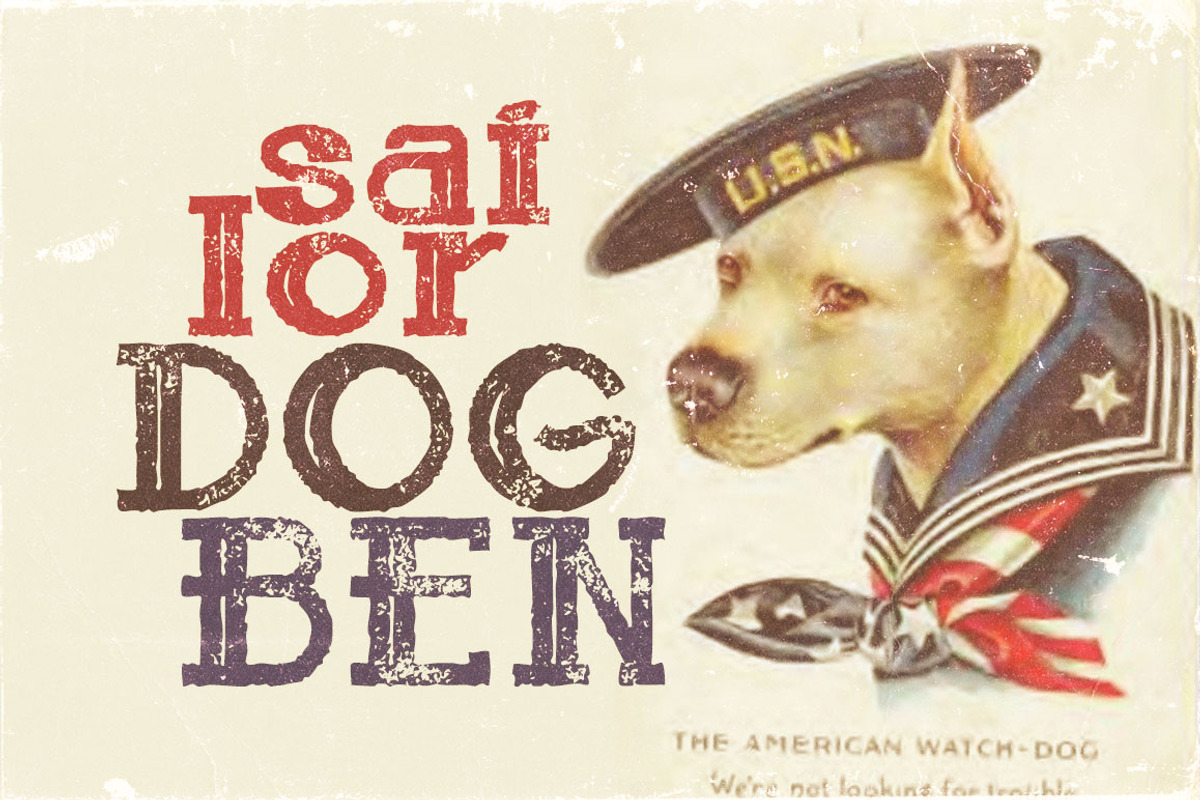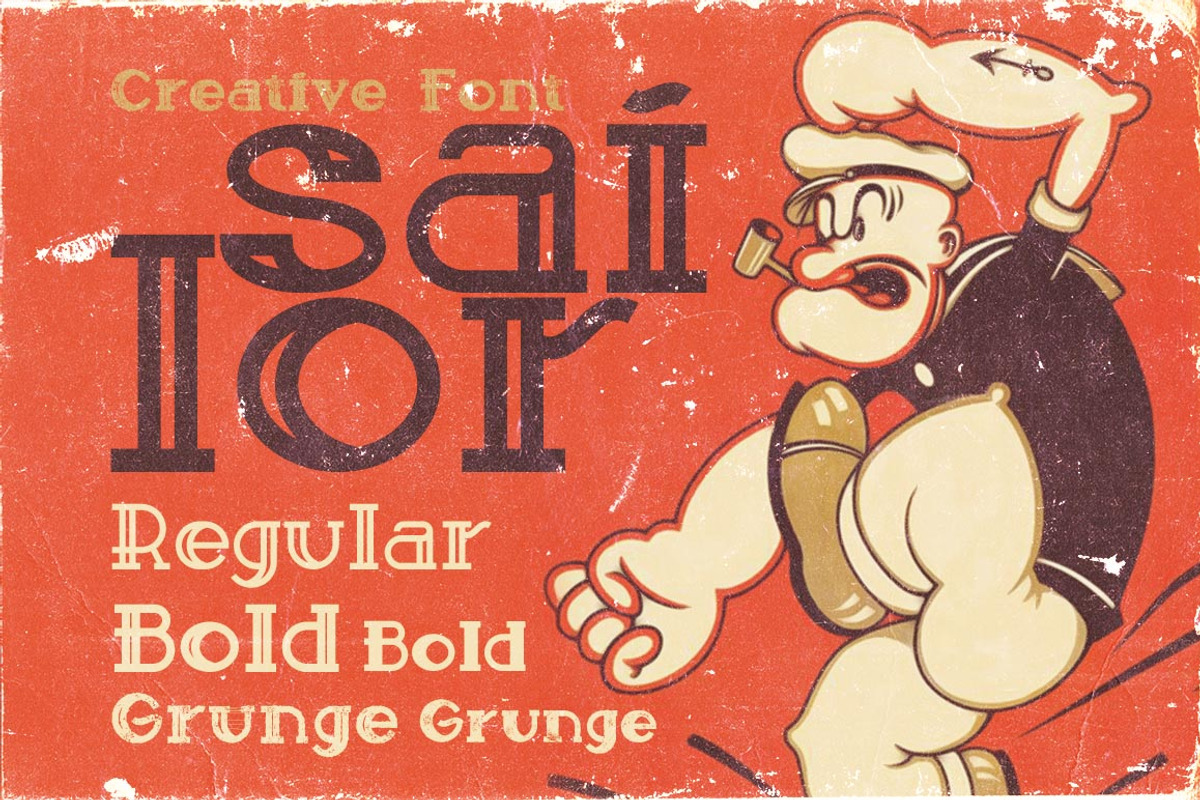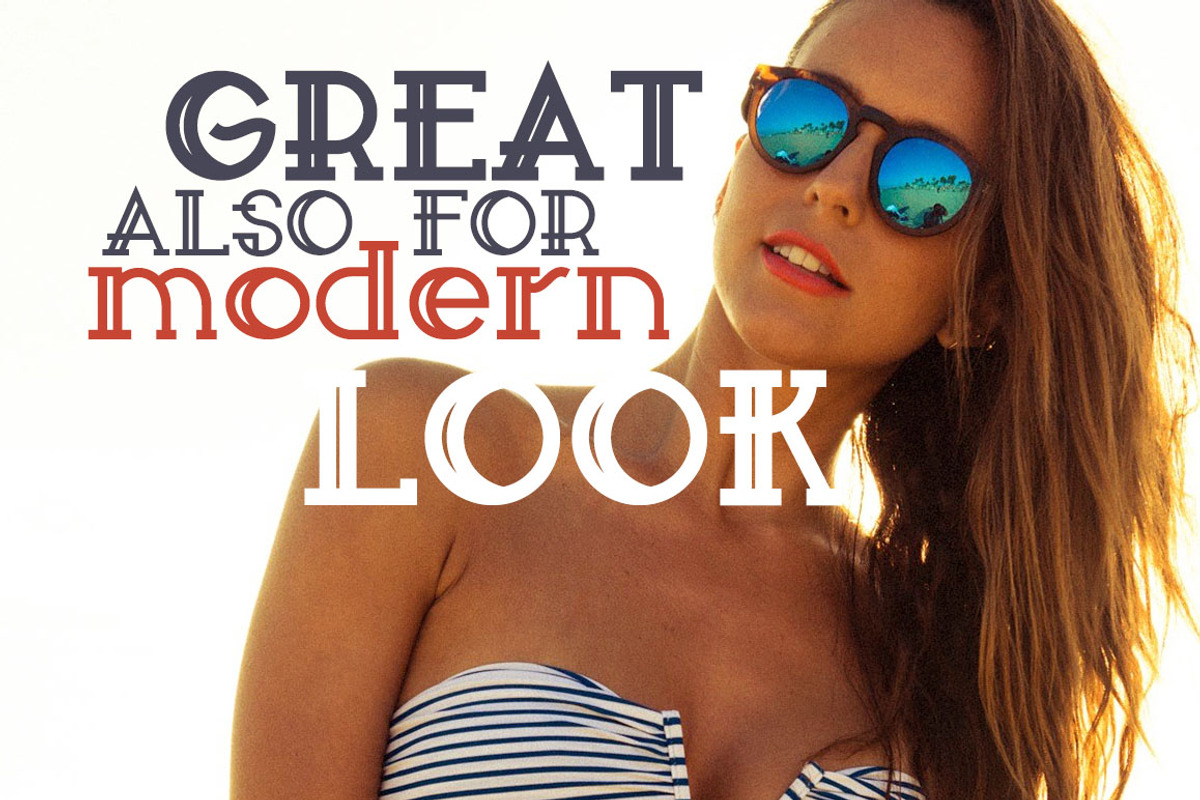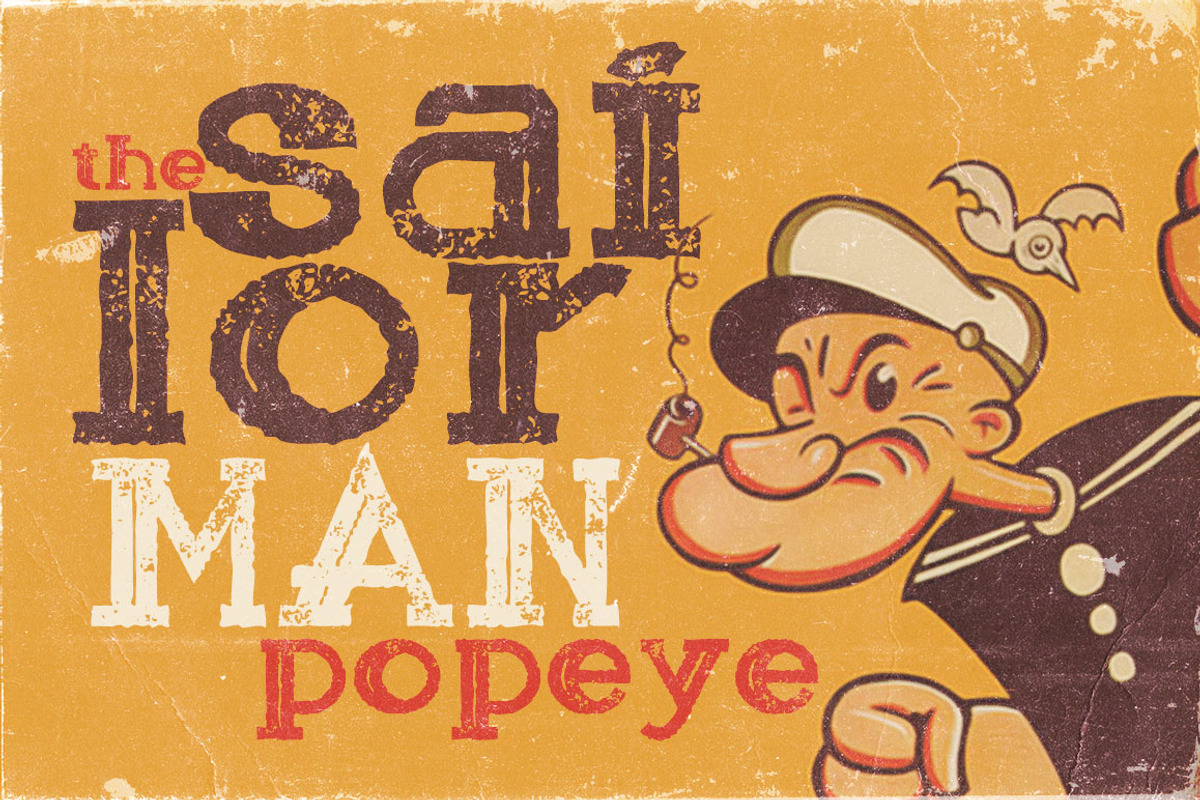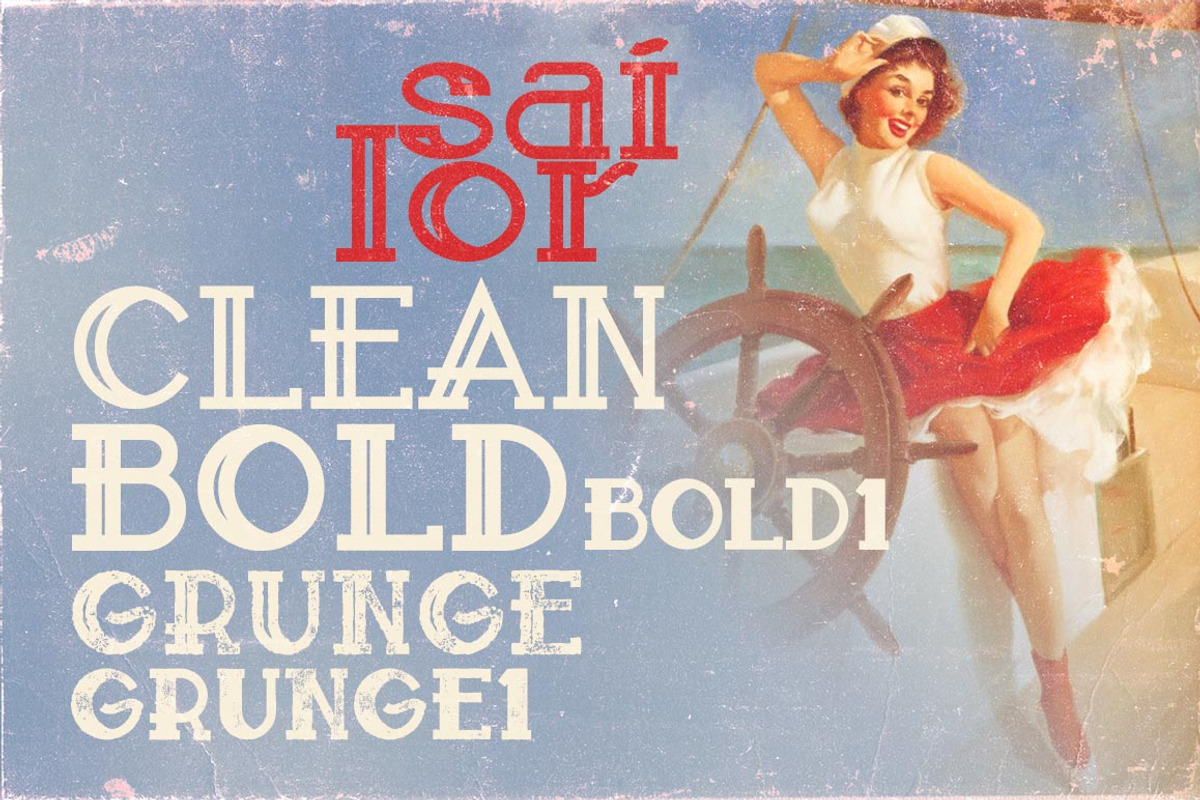
Sailor Font
Sailor Font by Cruzine is a font selected for branding, posters, packaging, typography.
Why Sailor Font is worth a look
Sailor Font by Cruzine fits naturally into Branding, posters, packaging, typography.